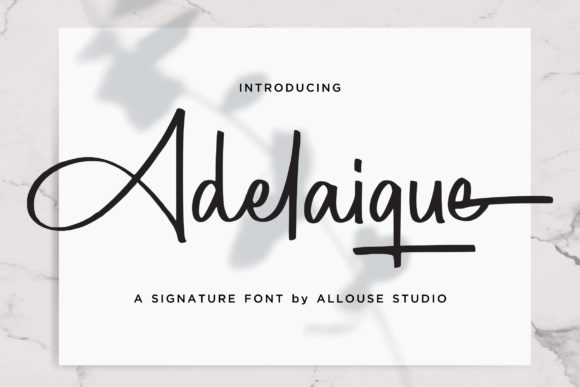
Introduction to Adelaique Font
Adelaique is a signature font with a stylish handwritten feel full of curves, swashes, lines, and more.
The balance in every word is truly extraordinary It’s perfect for greeting cards, magazines, headers, social media, and more.
Key Features of Adelaique Font